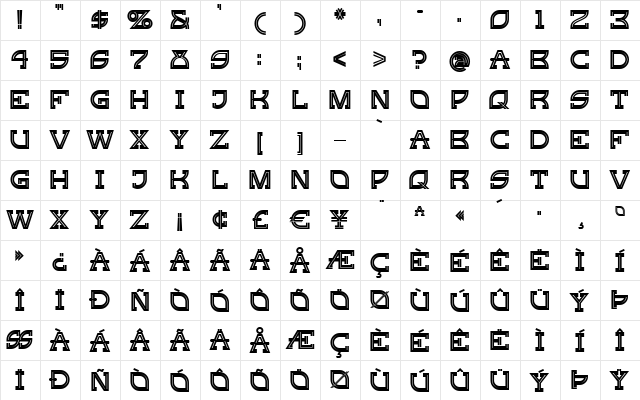
GingerPeachy Regular
Design Context for GingerPeachy Typeface
GingerPeachy is a composed and adaptable typeface that performs quietly and consistently across a wide range of design contexts.